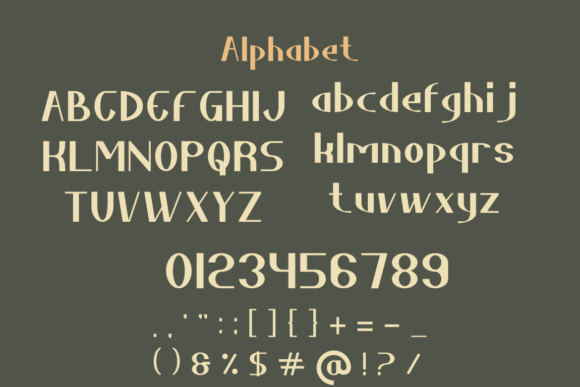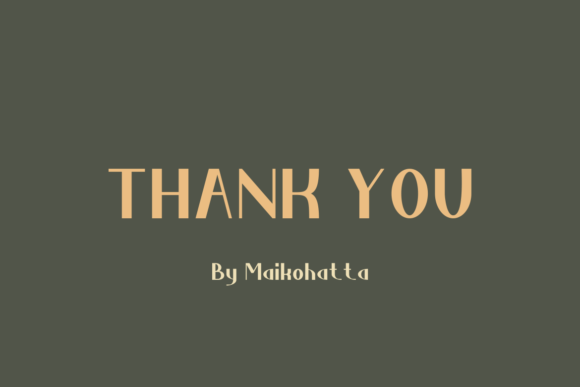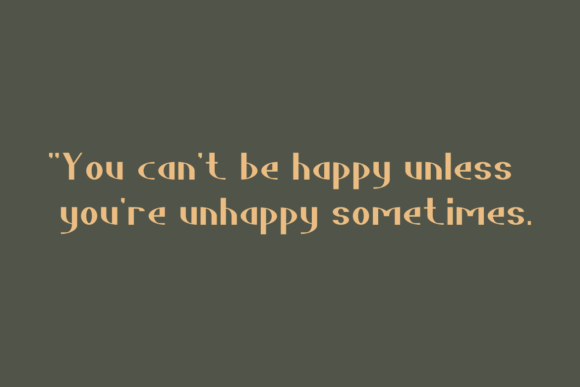
Introduction to Koliluk Font
Koliluk Font is a bold and authentic sans serif font.
The font is suitable for any branding project like logo, t-shirt printing, esports, and many more Fall in love with its incredibly distinct and timeless style, and use it to create spectacular designs.
Key Features of Koliluk Font
Why Choose Koliluk Font?
Koliluk Font offers exceptional quality and versatility, making it a valuable addition to your design toolkit. Whether you’re creating for personal projects or commercial use, Koliluk Font delivers professional results.